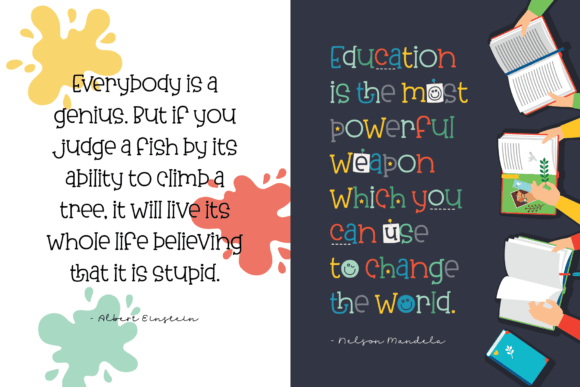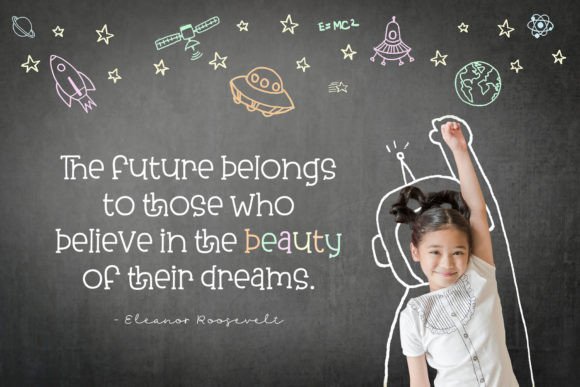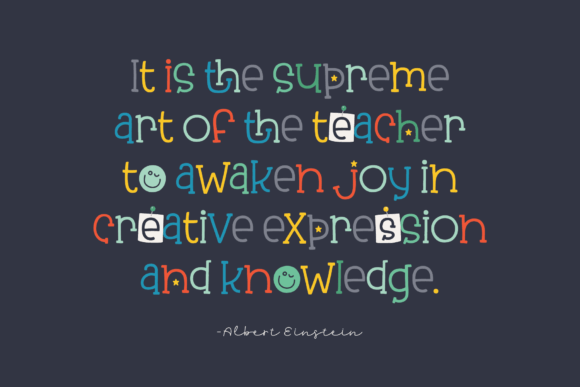
Introduction to Reach for the Stars Font
Have you ever been working on a creative project and suddenly, the perfect font pops into your mind? For designers, finding the right font can be the game-changer that elevates a project from good to great. And that’s exactly what the Reach for the Stars Font does – it adds a touch of magic to any design.
This adorable hand-drawn slab serif font is a treasure trove for designers, offering not only a regular version but also a small-caps version, perfect for creating a unique and playful look. And with its transparent background, you can easily combine it with other design elements to create a cohesive and high-quality visual experience.
As a valuable design resource, Reach for the Stars Font is available for free download, making it an absolute must-have for any creative project. Whether you’re designing a logo, a poster, or a digital product, this font is sure to bring a smile to your face and add a touch of whimsy to your design.
Key Features of Reach for the Stars Font
- Features a modern and elegant design, perfect for adding a touch of sophistication to any project
- Designed to be scalable, ensuring crisp and clear text even at large sizes
Honest Review: Reach for the Stars Font
I recently stumbled upon the Reach for the Stars Font and was excited to give it a try for my creative project. Overall, I found this font to be a great addition to my design resources.
- Clean and modern design aesthetic
- High quality, with clear and crisp letterforms
- Works well for titles, headings, and body text
One thing that stood out to me was the versatility of the font. It’s perfect for a wide range of creative projects, from logos and branding to brochures and websites.
- May not be suitable for more formal or traditional designs
Overall, I’m very impressed with the Reach for the Stars Font. It’s a great addition to any designer’s toolkit, and I would highly recommend it for any creative project.
Common Use Cases for Reach for the Stars Font
This font is perfect for creating attention-grabbing titles, headings, and text overlays for social media graphics, presentations, and marketing materials. It’s also great for designing logos, typography, and text-based designs for your creative project.